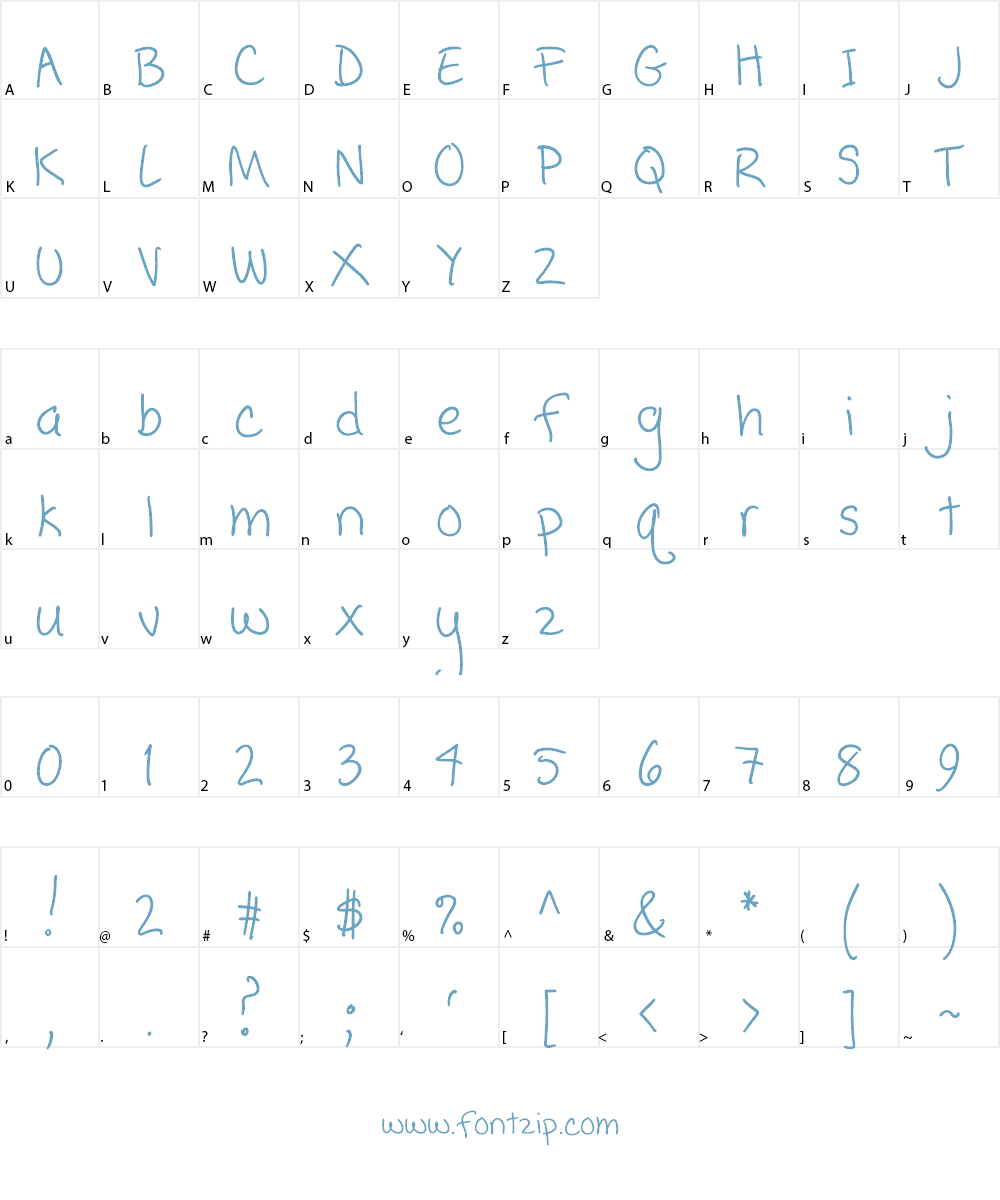
"Popcorn Mountain!" is a handwritten, opentype font that utilizes opentype features in an effort to appear more realistic. The font includes accented letterforms, math symbols, custom kerning, contextual alternatives and ligatures for many common letter combinations, and other stuff I guess.